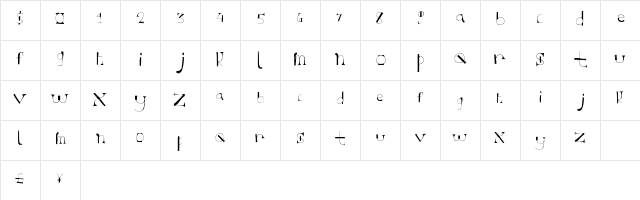
RetroTastic wears its vintage influences proudly, with letterforms that recall mid-century signage, classic packaging, and nostalgia-driven design.
Font Pairing: Combine RetroTastic with a simple slab or neutral sans - period-accurate companions reinforce the vintage feel without competing for attention.
Pro Tip: Lean into RetroTastic's period character by pairing it with aged paper textures, muted colour palettes, and vintage illustration styles.